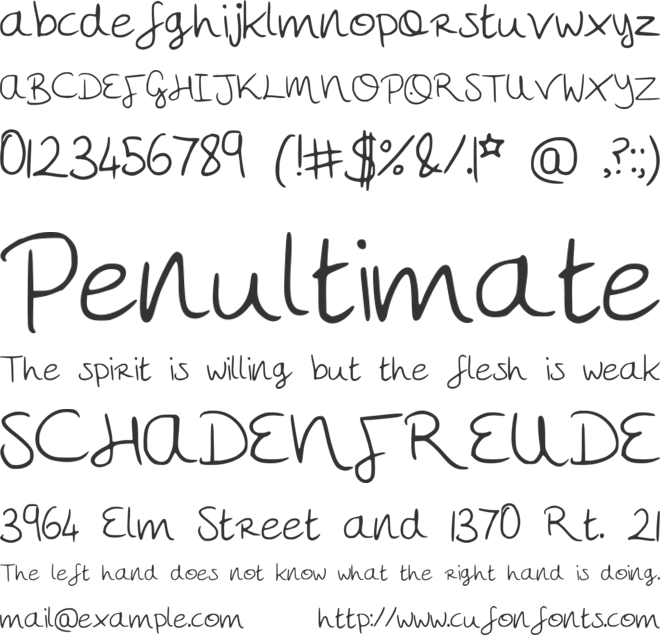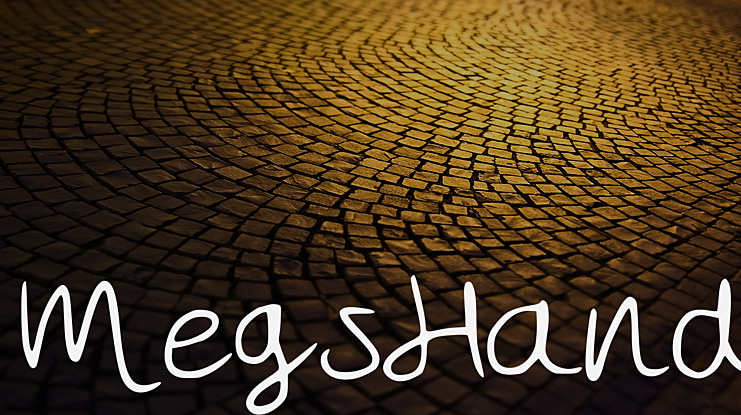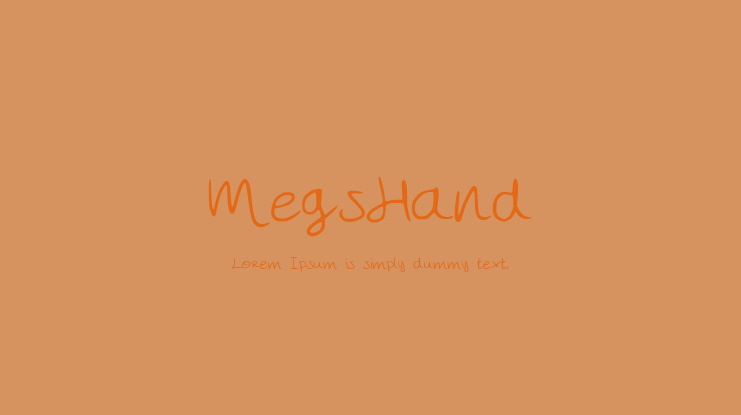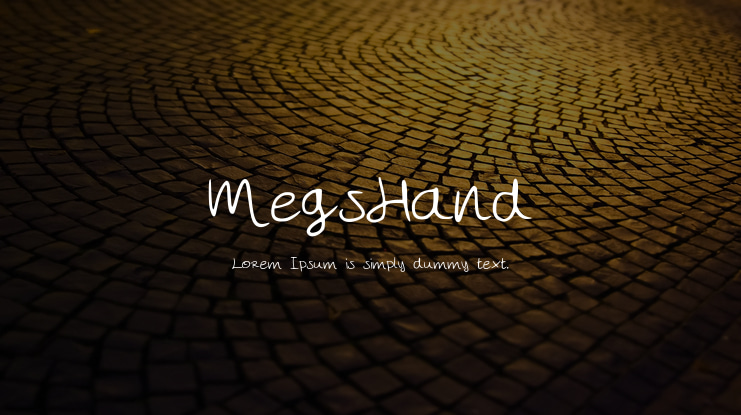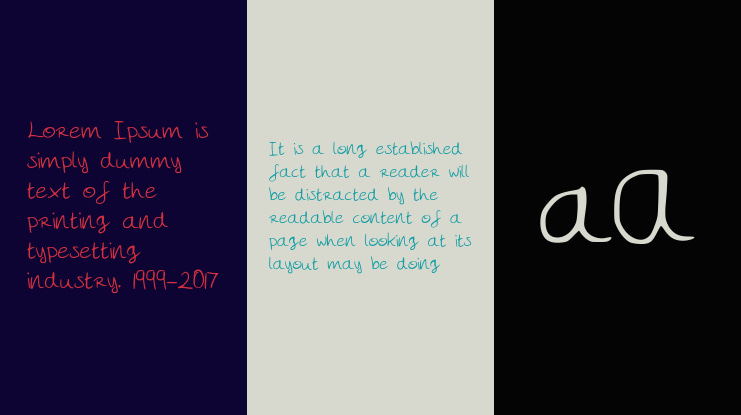
MegsHand Font
So this is a slightly~ tidier version of my own handwriting. It is free for personal use, and a donation for commercial use. Please contact me for further details.